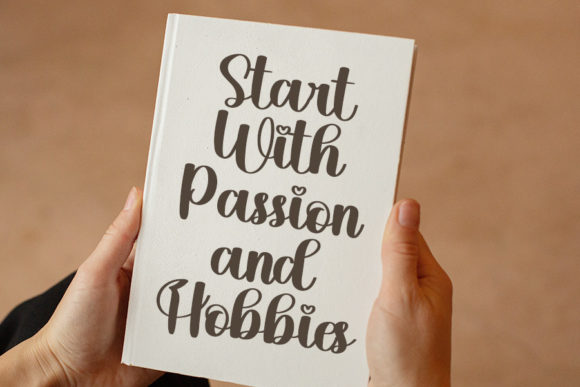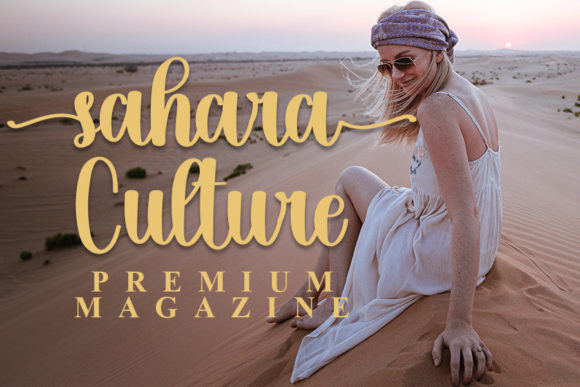
Socialita Font
db-ku.com - Script & Handwritten -- Socialita is a gorgeous and bold handwritten font. It reads as confident and dynamic and can add tons of nostalgic character to your designs. This font is PUA encoded which means you can access all of the amazing glyphs and ligatures with ease!